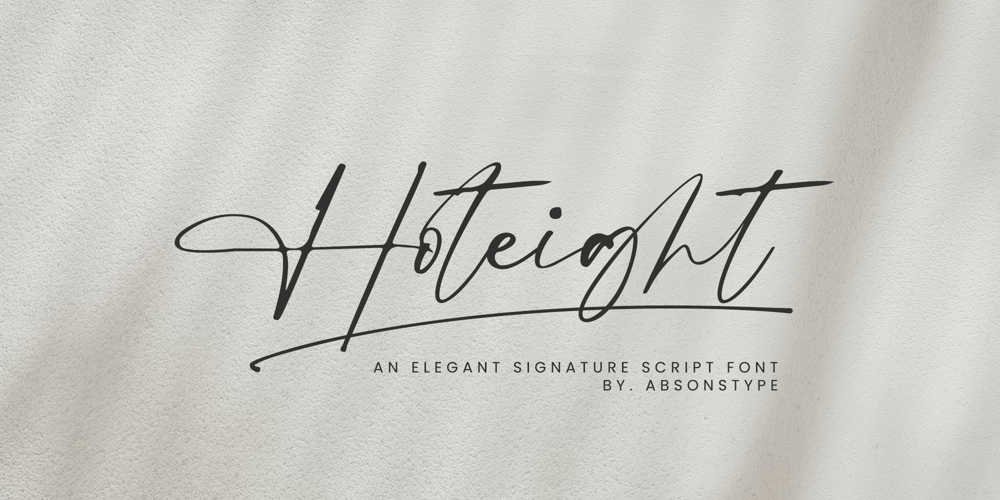
Hoteight Font Family was designed by Edhi Prayitno and published by Absonstype. Hoteight contains 1 styles and family package options. Hoteight is an elegant signature script font, wide all caps style of the sans and elegant modern script feel nice balanced. Provide with ligatures in script makes the design letter looks nice. Honestly it works perfectly for headlines, logos, posters, packaging, T-shirts, Branding and much more.Recommended to use in Adobe Illustrator or Adobe Photoshop with opentype feature.Ligatures feature is default setting in Adobe Illustrator or Adobe Photoshop in Uppercase character. So when you want not to use the ligatures.Open glyphs panel : In Adobe Photoshop choose tool Window >> Character and then please click fi symbol In Adobe Illustrator choose tool Window >> Type >> Open Type and then please click fi symbol If you have questions, just send me a message and I’m glad to help.Have a great day,Absonstype